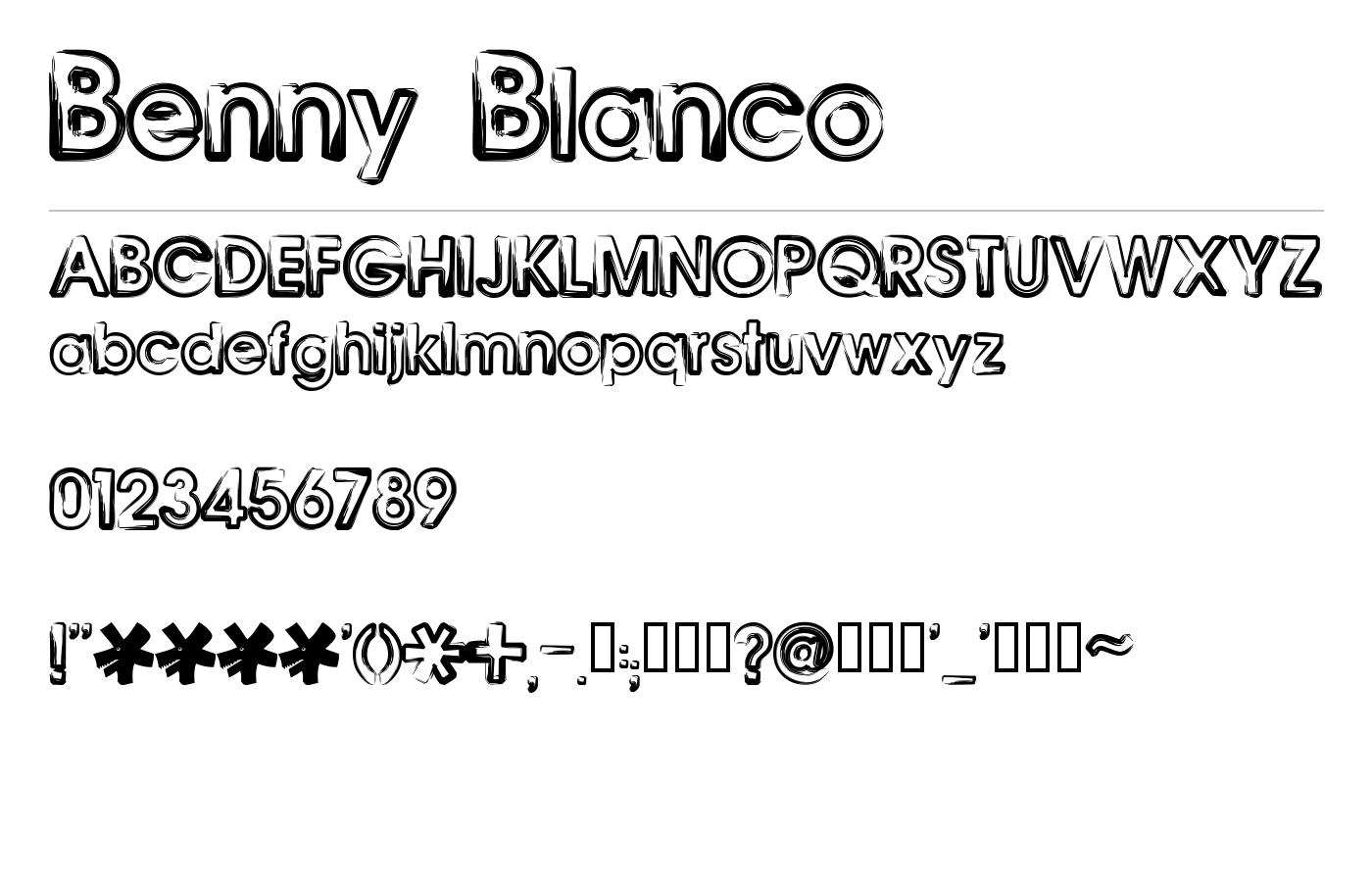
Benny Blanco is a playful sans serif font with a bold, hand-drawn look that combines thick, slightly irregular strokes with a sketchy, textured outline. Its rounded shapes and casual style give it a fun, approachable personality, making it ideal for creative projects, children’s designs, or standout headlines where a lively and informal tone is desired. This font works best in logos, posters, and packaging that benefit from a unique, artistic flair.
Benny Blanco Font